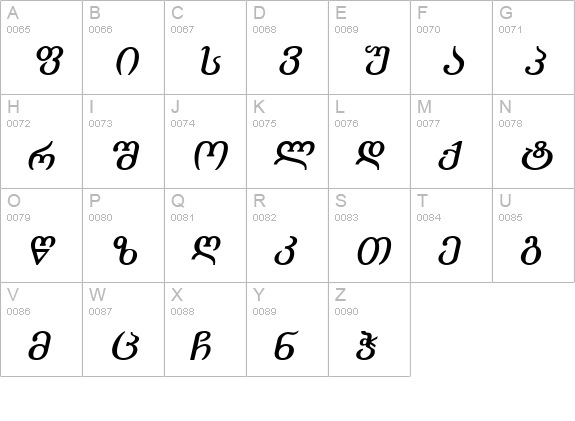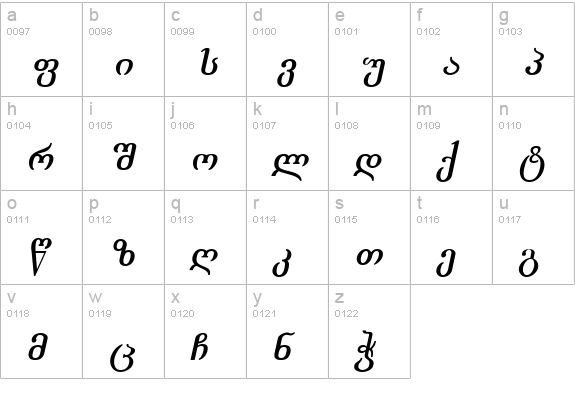
Academiury-ITV Bold Italic Font Details
Academiury-ITV Bold Italic is a strong, high-contrast, italic variant in the Academiury typeface family \xE2\x80\x94 well suited to headlines, attention-grabbing titles, and strong calls-to-action.
Academiury-ITV Bold Italic font is a modern and stylish typeface that exudes confidence and sophistication. Its bold and italic design adds a touch of elegance to any project, making it perfect for headlines, titles, and branding materials. This versatile font is not only visually appealing but also highly legible, ensuring that your message comes across clearly and effectively. Whether you're creating a website, poster, or business card, Academiury-ITV Bold Italic font will elevate your design to the next level. Best of all, this premium font is available for free download at FontsMarket.com, allowing you to access its high-quality design without breaking the bank. Don't miss out on this opportunity to enhance your projects with the sleek and modern look of Academiury-ITV Bold Italic font.